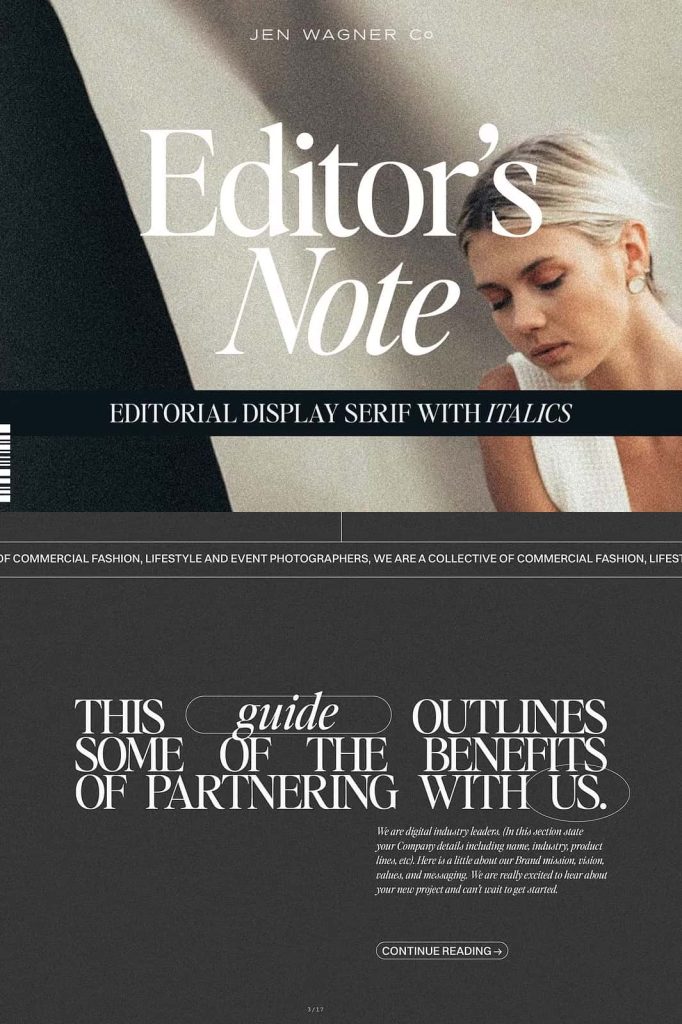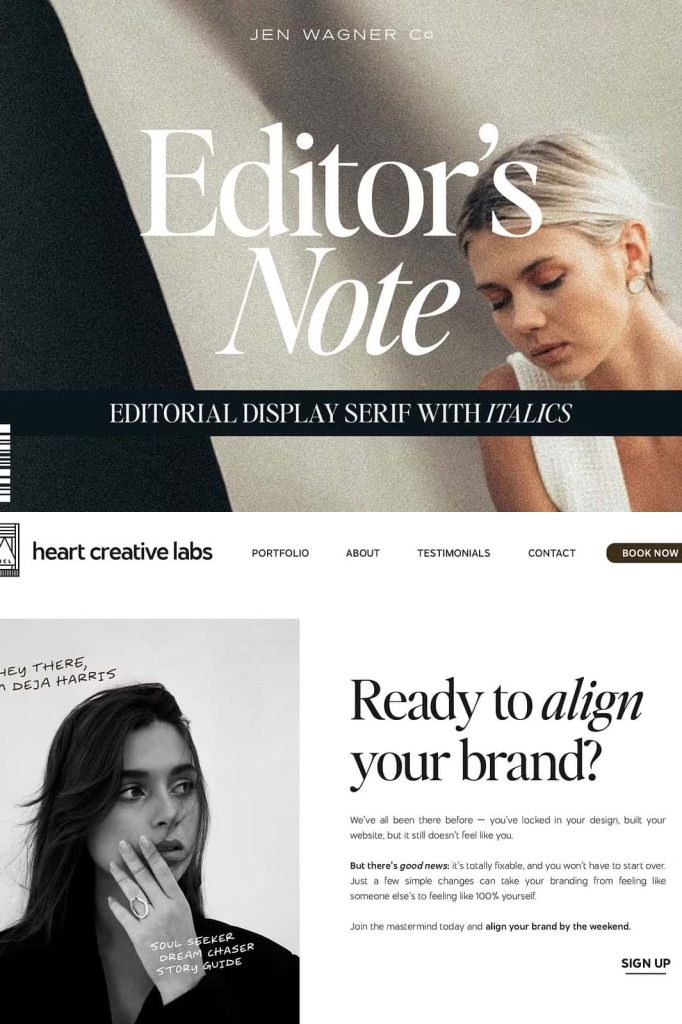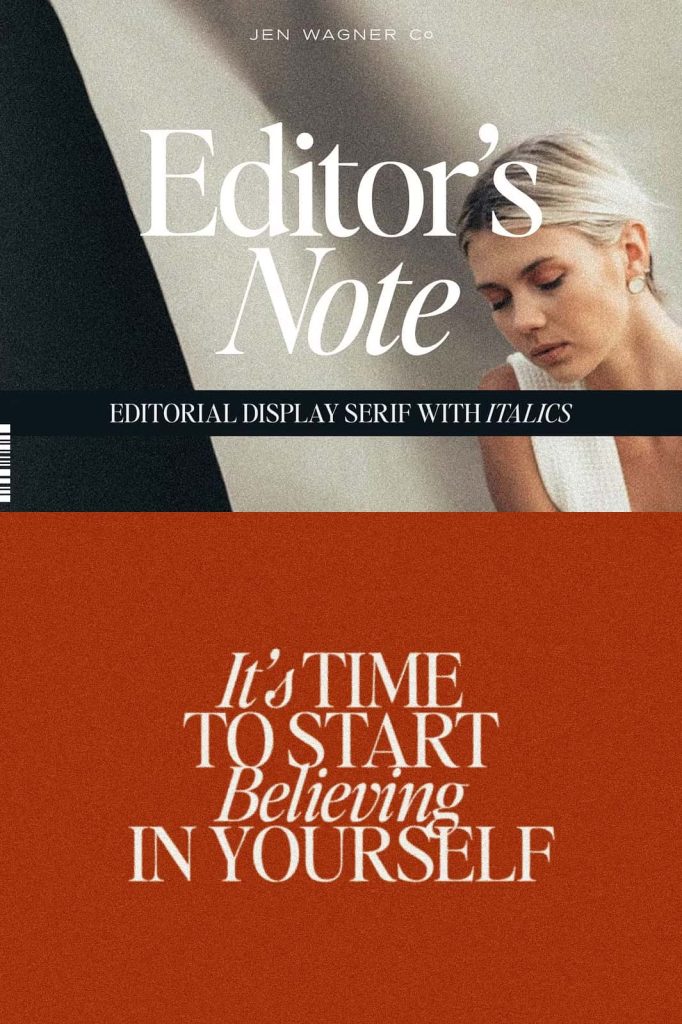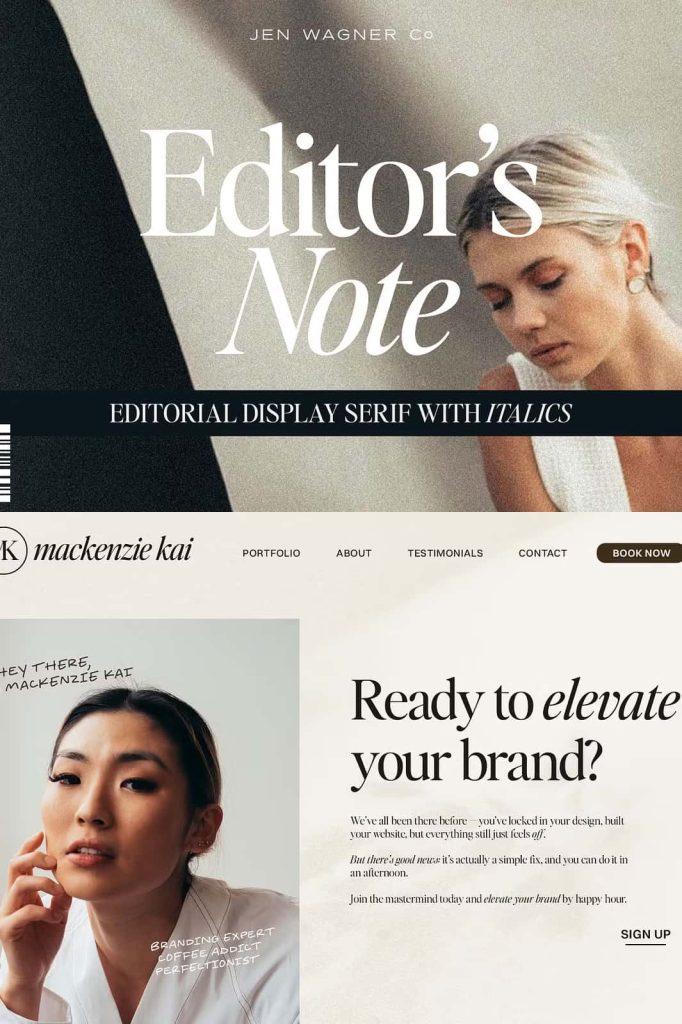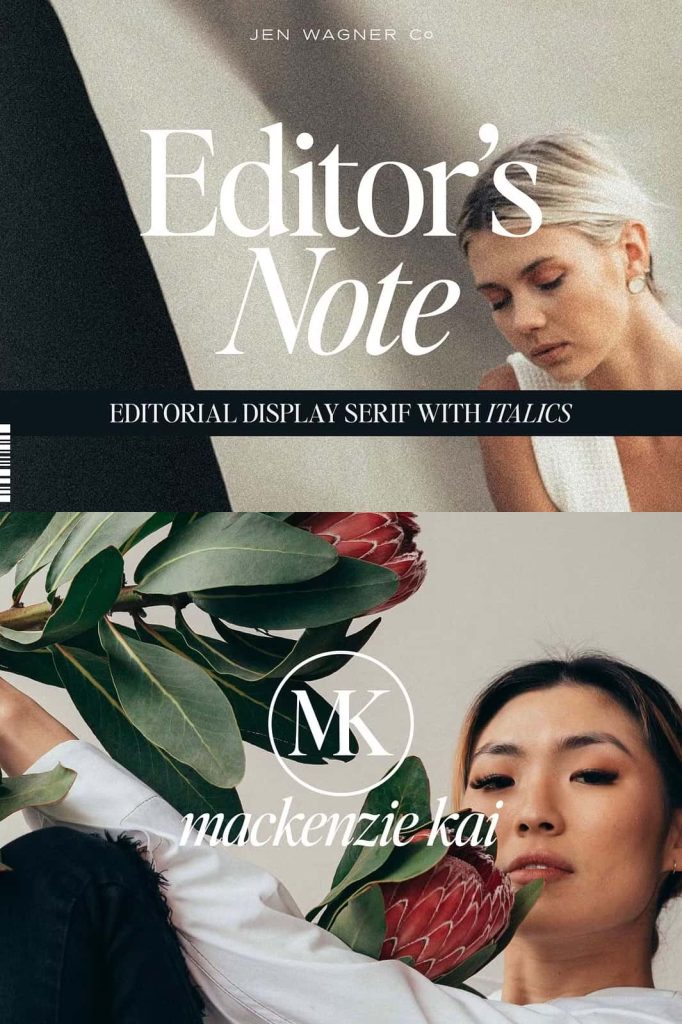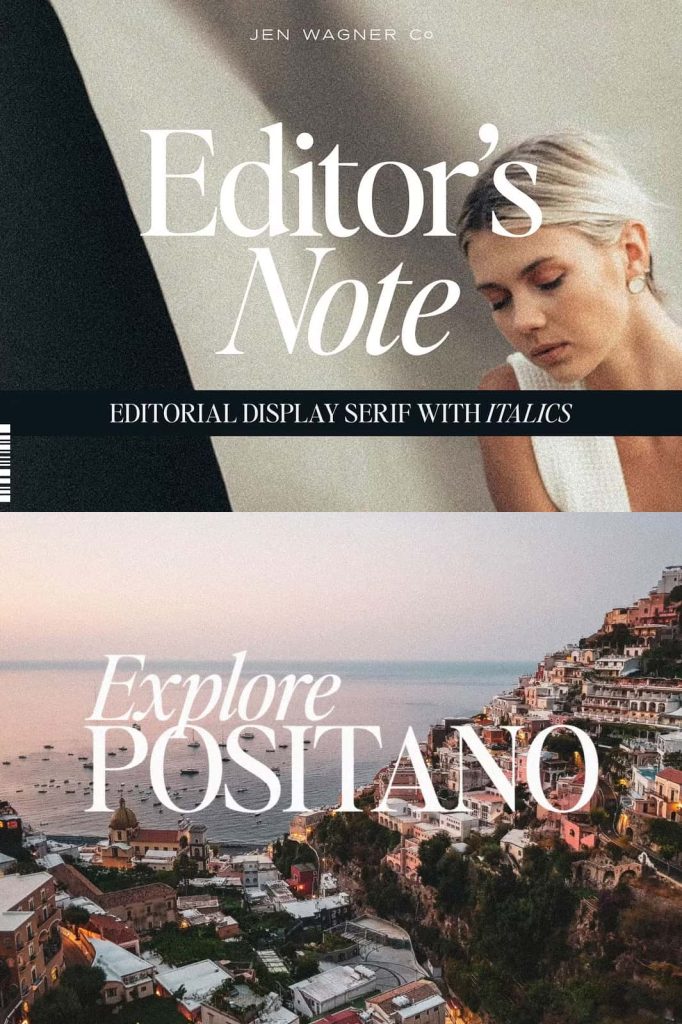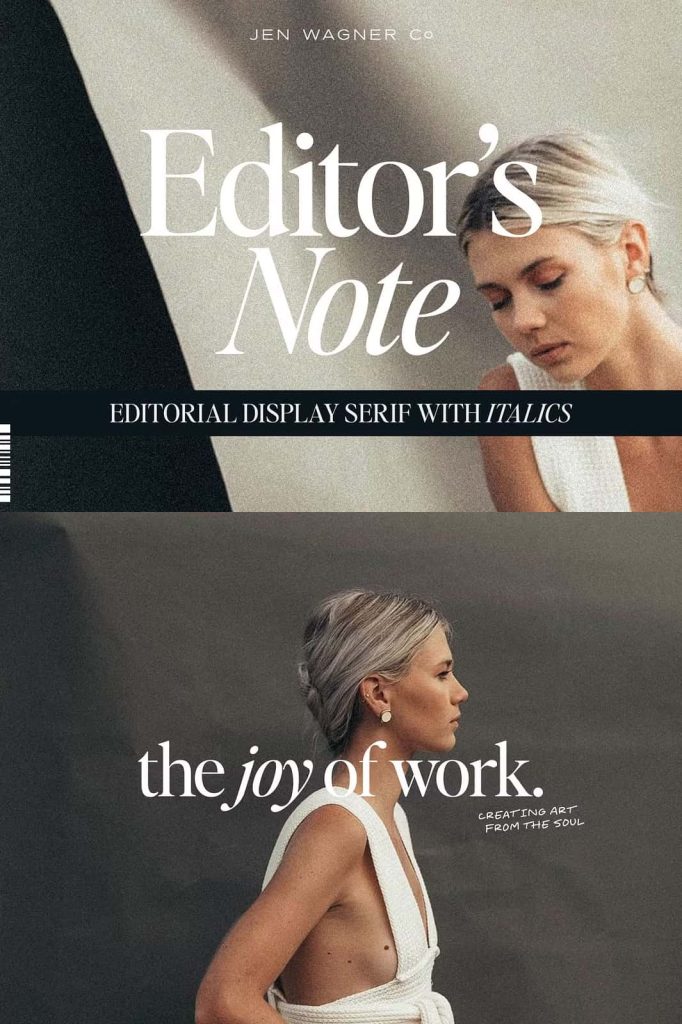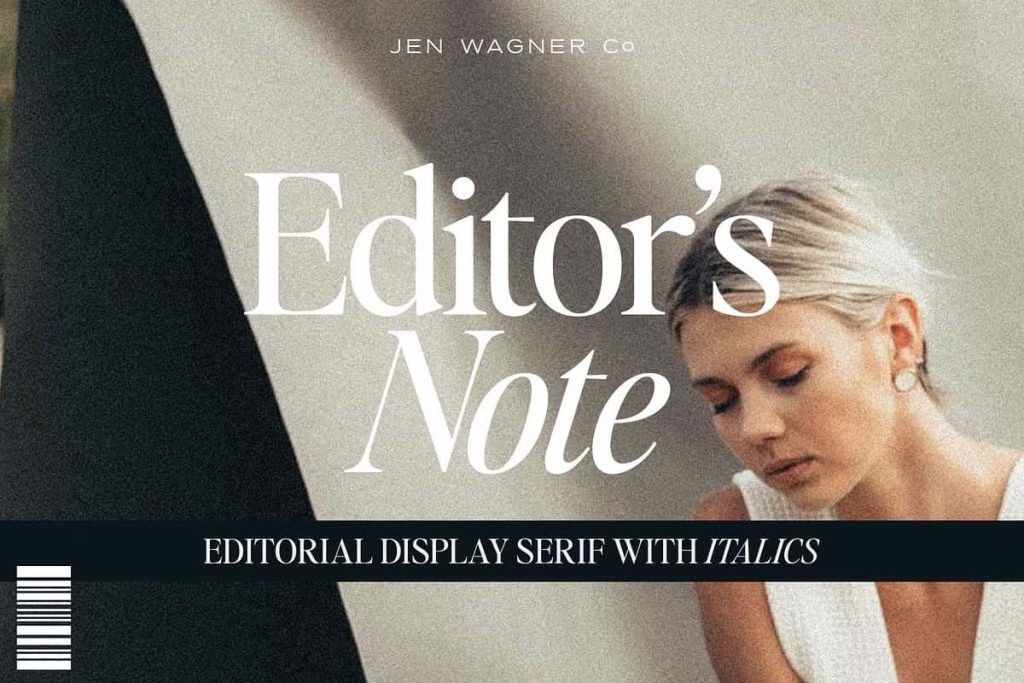
Editor’s Note: Clean Editorial SerifleastedJune 26, 2024Fonts Introducing Editor’s Note – a brand new editorial serif with all the clean lines, tight curves, and trendy minimalist vibes! Download